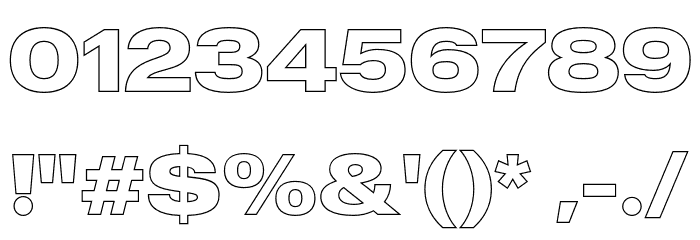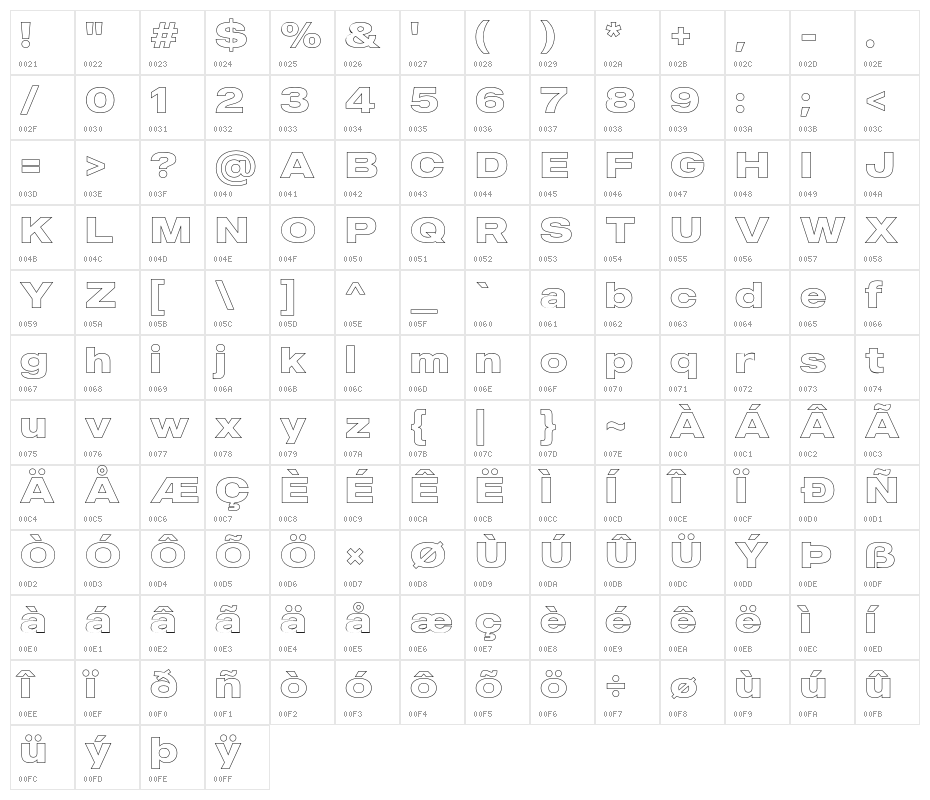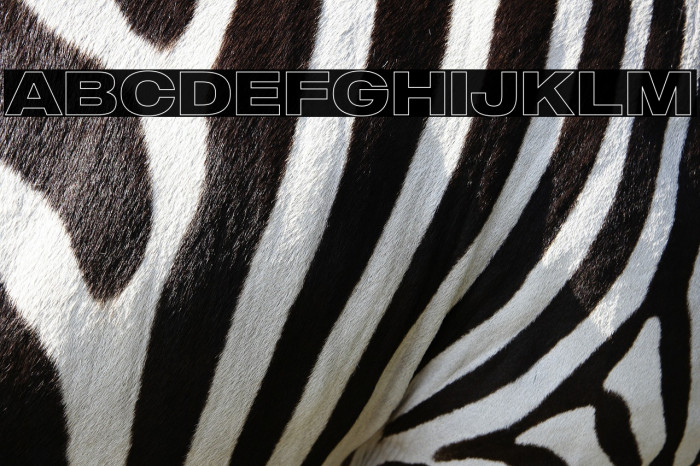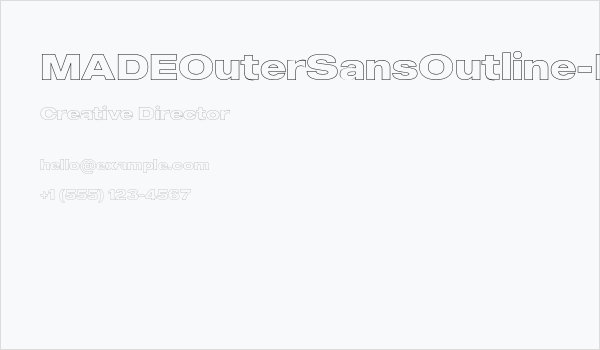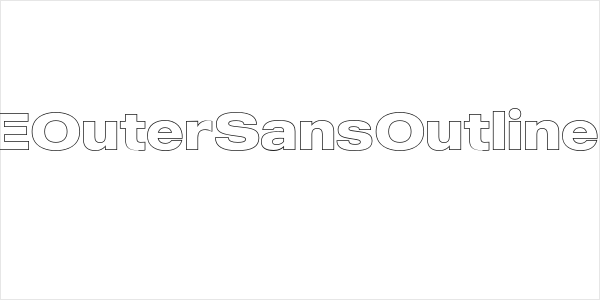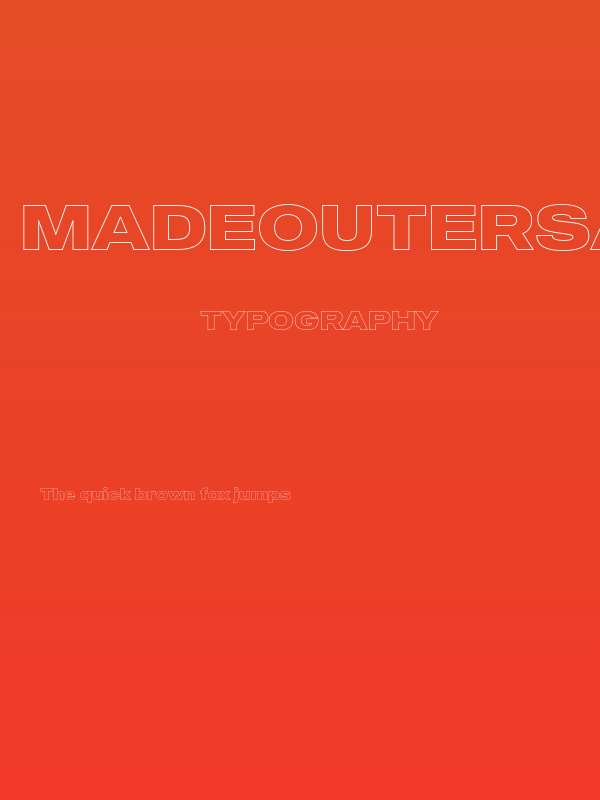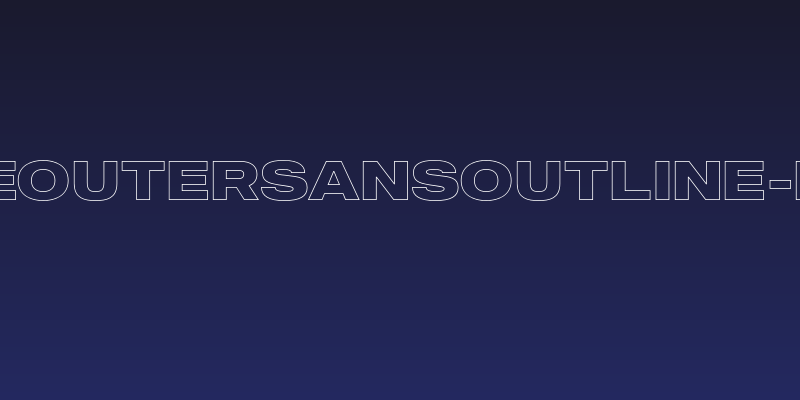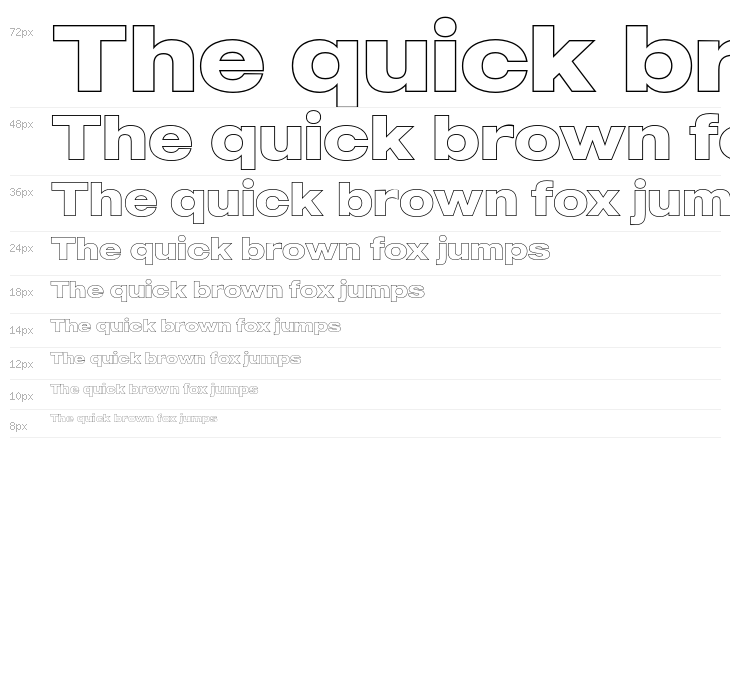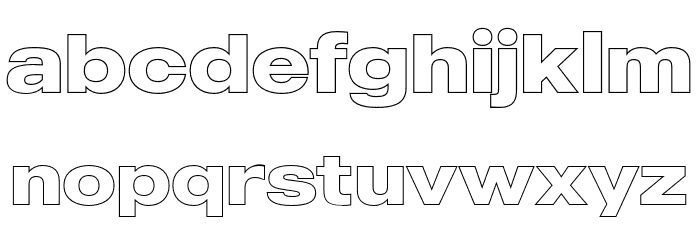
MADEOuterSansOutline-Bold Font
MADEOuterSansOutline-Bold Description
This font features a bold, outlined style with a modern and clean aesthetic. The uppercase and lowercase letters are well-proportioned, maintaining a consistent thickness throughout the outline, which gives it a structured and geometric appearance. The numerals and special characters follow the same design principles, ensuring uniformity across all glyphs. The font's outline nature allows for creative use in various design projects, providing a unique look that stands out while remaining legible. Its sans-serif design contributes to its contemporary feel, making it suitable for modern applications.
| Proposed Projects | Ideal for headlines, posters, branding, and any design project that requires a modern and eye-catching font. |